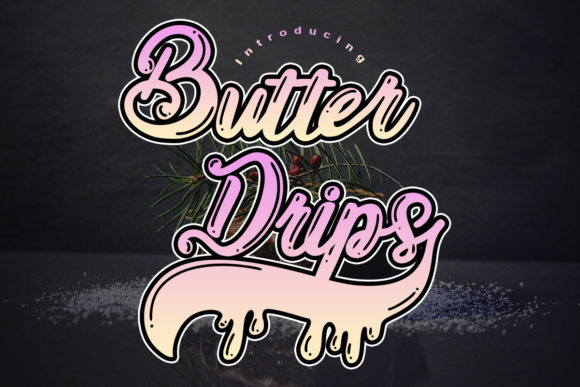
Introducing Butter Drips Font: The Sweetest Addition to Your Design Collection
Are you a designer or crafter looking for a unique and eye-catching font to add a touch of sweetness to your creations? Look no further than Butter Drips Font, an original and charming handwritten font that’s sure to make your designs stand out.
What Makes Butter Drips Font So Special?
Butter Drips Font is an original and unique handwritten font that’s been carefully crafted to bring a sense of warmth and friendliness to your designs. Its distinctive, drippy style is reminiscent of melted butter, making it perfect for designs that require a touch of whimsy and playfulness.
One of the best things about Butter Drips Font is that it’s PUA (Private Use Area) encoded, which means you can access all of the glyphs and swashes with ease. This makes it simple to customize your designs and add your own personal touch. Whether you’re a seasoned designer or a crafty DIY enthusiast, PUA encoding ensures that you can get the most out of this amazing font.
Perfect for Sweet Treat Designs
Butter Drips Font works incredibly well on designs that require a touch of sweetness, such as:
- Cake menus: Add a touch of elegance and sophistication to your cake menus with Butter Drips Font.
- Candy shop posters: Create eye-catching posters that will make customers crave for more.
- Baking blogs: Add a personal touch to your baking blog with custom graphics and headings.
- Food packaging: Make your food packaging stand out with custom labels and designs.
Why Choose Butter Drips Font?
There are many reasons why Butter Drips Font is the perfect choice for designers and crafters:
- Unique style: Butter Drips Font has a distinctive, one-of-a-kind style that’s sure to make your designs stand out.
- Ease of use: PUA encoding makes it easy to access all of the glyphs and swashes.
- Versatility: This font works well on a wide range of designs, from cake menus to candy shop posters.
- High-quality: Butter Drips Font is a high-quality font that’s been carefully crafted to ensure that it looks great in any design.
Tips for Using Butter Drips Font
Here are a few tips for getting the most out of Butter Drips Font:
- Experiment with different sizes: Butter Drips Font looks great in a variety of sizes, from small headings to large titles.
- Mix and match: Combine Butter Drips Font with other fonts to create a unique and eye-catching design.
- Play with colors: Butter Drips Font works well with a wide range of colors, from bright and bold to soft and pastel.
Butter Drips Font is a unique and charming handwritten font that’s perfect for designers and crafters who want to add a touch of sweetness to their creations. With its PUA encoding and distinctive drippy style, this font is sure to make your designs stand out. Whether you’re creating cake menus, candy shop posters, or custom graphics, Butter Drips Font is the perfect choice. So why wait? Download Butter Drips Font today and start creating your own sweet designs!